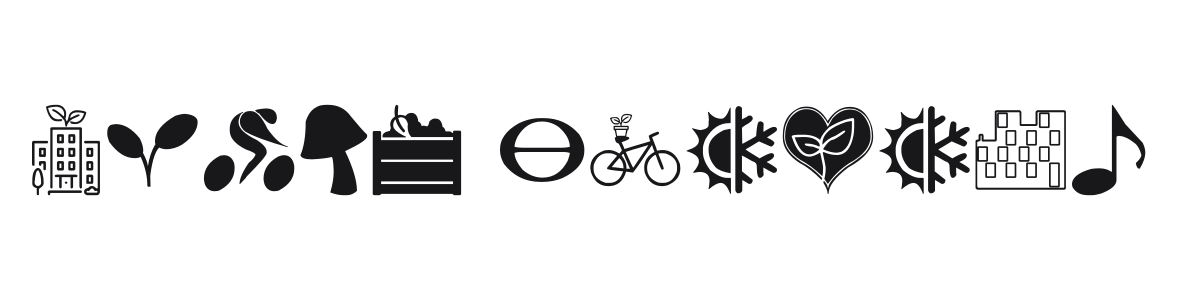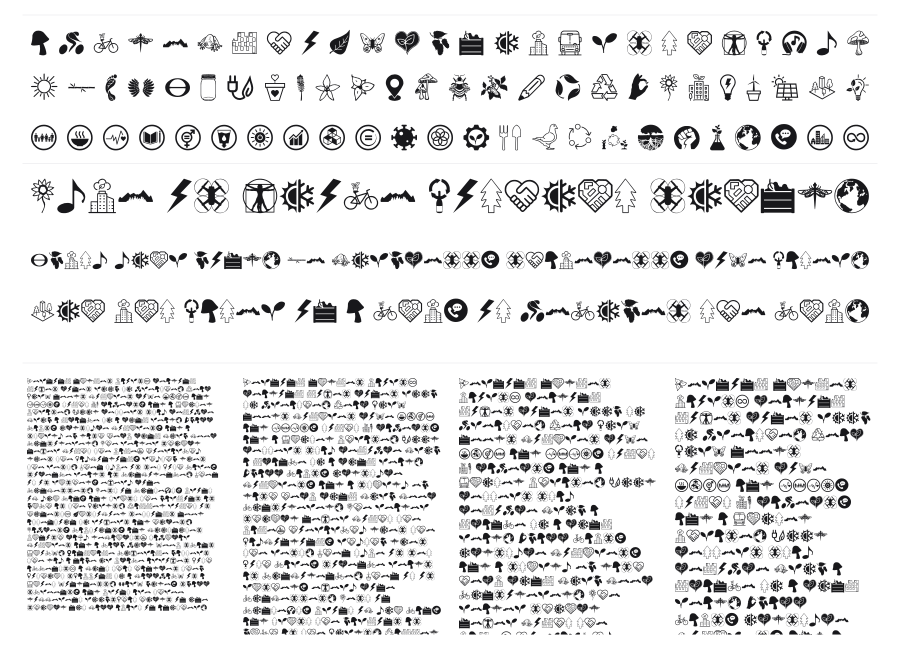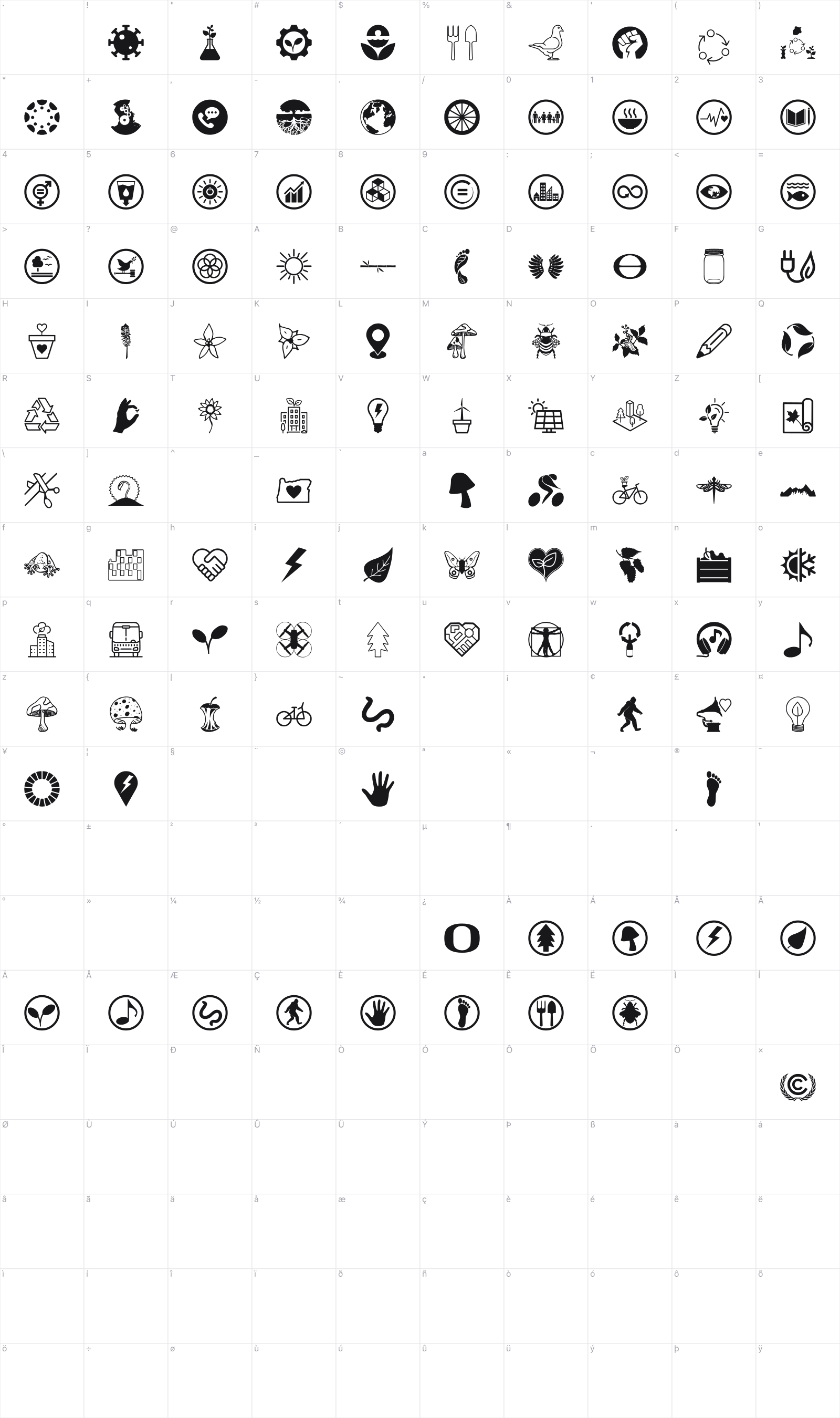
Urban Ecology
Urban Ecology is a dingbat icon font featuring over 100 silhouette symbols created by Green Cities students at the University of Oregon. It covers urban nature themes: mushrooms, insects, trees, bicycles, cityscapes, lightning, and the UN Sustainable Development Goal icons. A practical toolkit for environmental education projects and sustainability-themed design work.